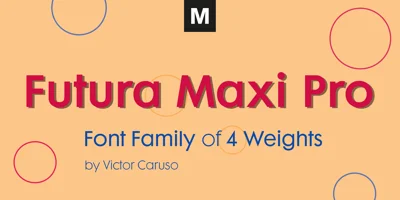
Futura Maxi Font
Bold, modern, and unmistakably geometric—Futura Maxi Font is a powerhouse typeface that brings precision and presence to any design. Inspired by the iconic Futura family, this version goes a step further with wider proportions and a stronger visual impact, making it perfect for headlines, posters, logos, and futuristic branding.
Futura Maxi Font maintains the clean simplicity of its Bauhaus roots while introducing a bolder stance, ideal for designers who want to convey confidence, innovation, and clarity. Whether you're working on tech interfaces, fashion editorials, or minimalist packaging, this font will give your work a sleek, contemporary finish.